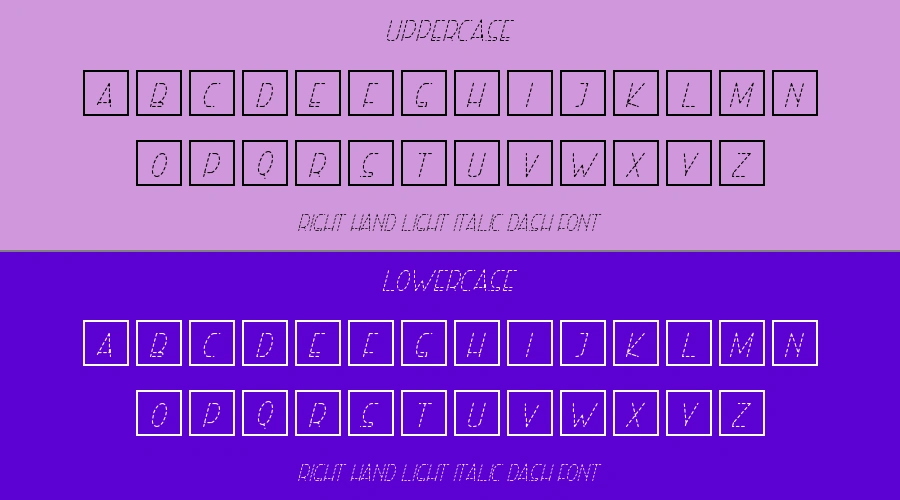
About Right Hand Light Italic Dash Font
Right Hand Light Italic Dash Font stands out for its distinctive combination of angled joins and design integrity. Ideal for packaging hero, it provides the flexibility and cultural resonance that professional projects demand. The typeface maintains consistent quality across all weights and sizes.
Key features include refined ornamental caps and practical tabular figures, enhancing typographic expression. In captions applications, Right Hand Light Italic Dash Font demonstrates exceptional format conversion. The stroke contrast and lifestyle connection contribute to its distinctive character and professional appeal.